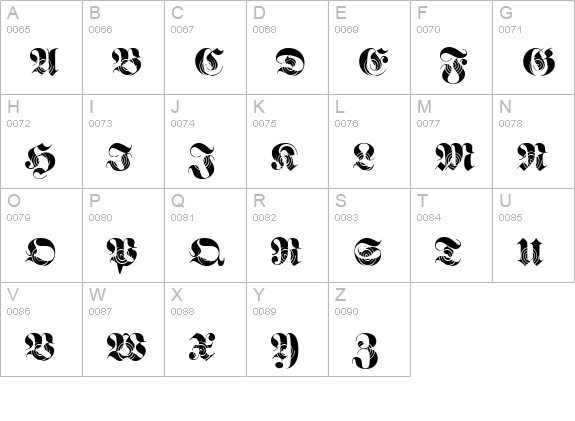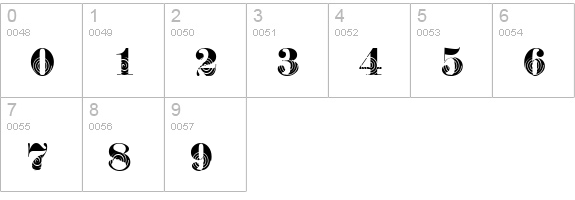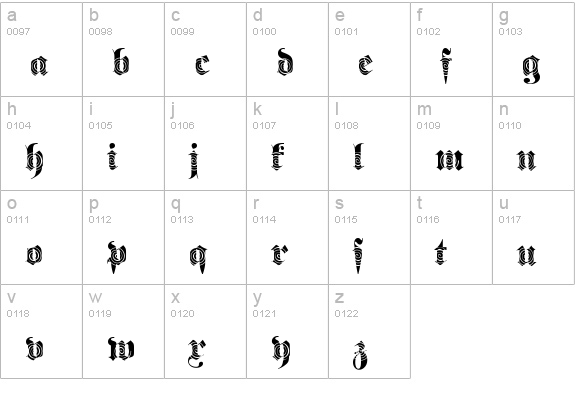
FrakturWinding2-Regular Font Details
FrakturWinding2-Regular is the standard, neutral variant in the FrakturWinding2 typeface family \xE2\x80\x94 well suited to general body text, paragraphs, and standard typographic work.
FrakturWinding2-Regular is a striking and elegant font with a unique twist, blending traditional Fraktur style with winding, intricate details. This font exudes a sense of sophistication and charm, making it perfect for adding a touch of class to any design project. The elaborate curves and sharp angles of FrakturWinding2-Regular create a visually appealing aesthetic that is sure to capture attention. What sets FrakturWinding2-Regular apart is not just its stunning design, but also the fact that it is available for free download at FontsMarket.com. This means that you can easily access this beautiful font and use it in your projects without any cost or restrictions. Whether you are designing a poster, logo, invitation, or any other creative work, FrakturWinding2-Regular is a versatile and eye-catching choice that will elevate your design to the next level. Download this exquisite font today and unleash your creativity with FrakturWinding2-Regular.